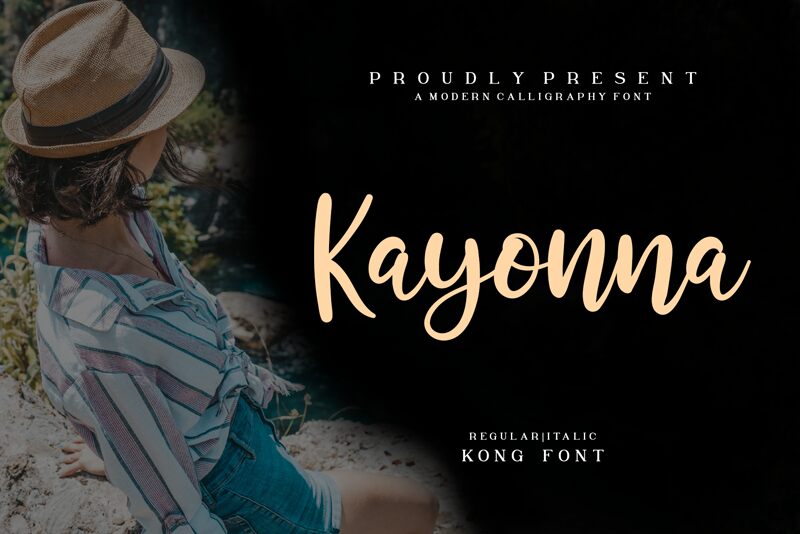
Kayonna font family is a flowing and modern font designed by Kong Font. It has approachable elements with lots of character for a natural and organic feel in texts. Kayonna script font includes handwritten qualities and a stylish touch within its forms making it suitable for different uses. Kayonna font family is a free font to allow creative designers maximum inspiring applications.
Elegant and casual at the same time, this typeface fits invitations, thank you cards, love letters, social media accounts, and photography signatures. Enhance the appearance of an online store, personalize an email, or simply integrate it into your presentations and posters.